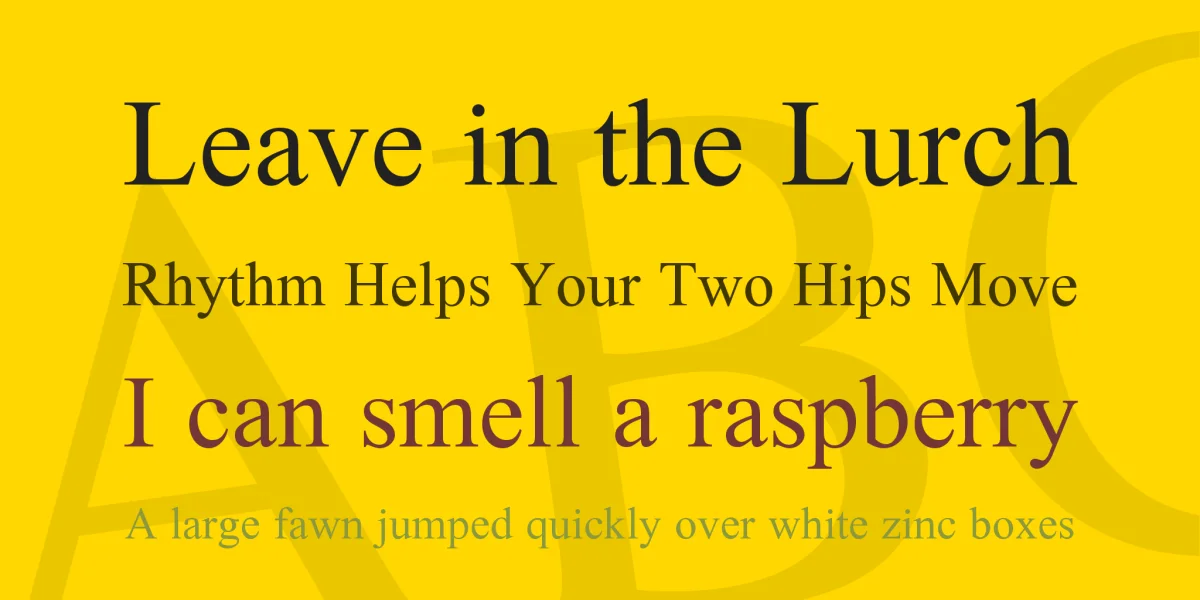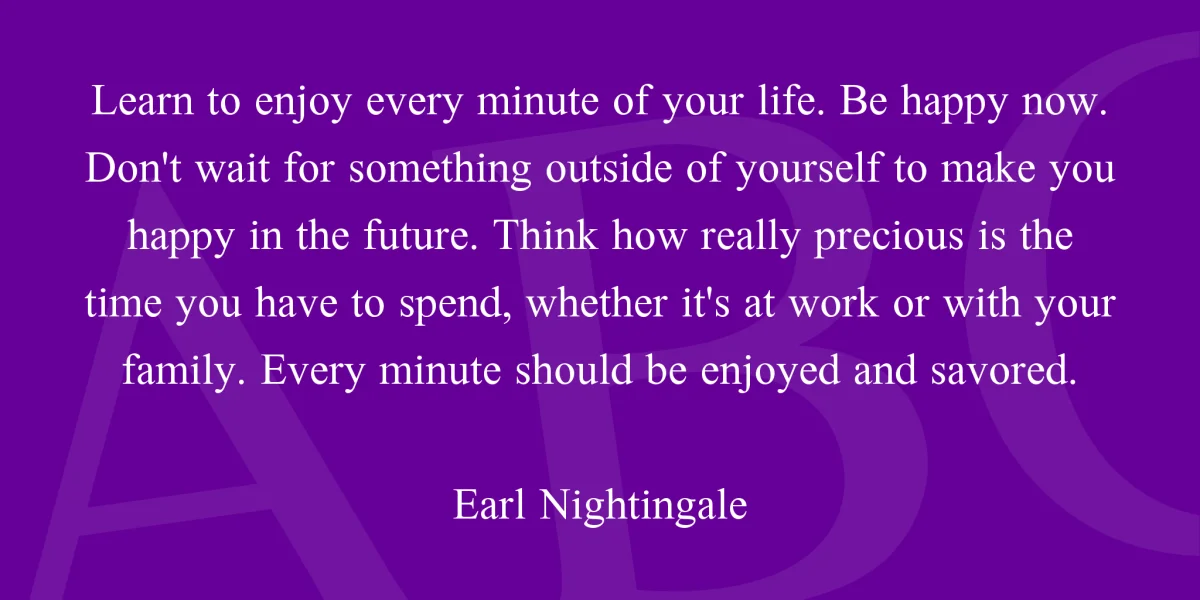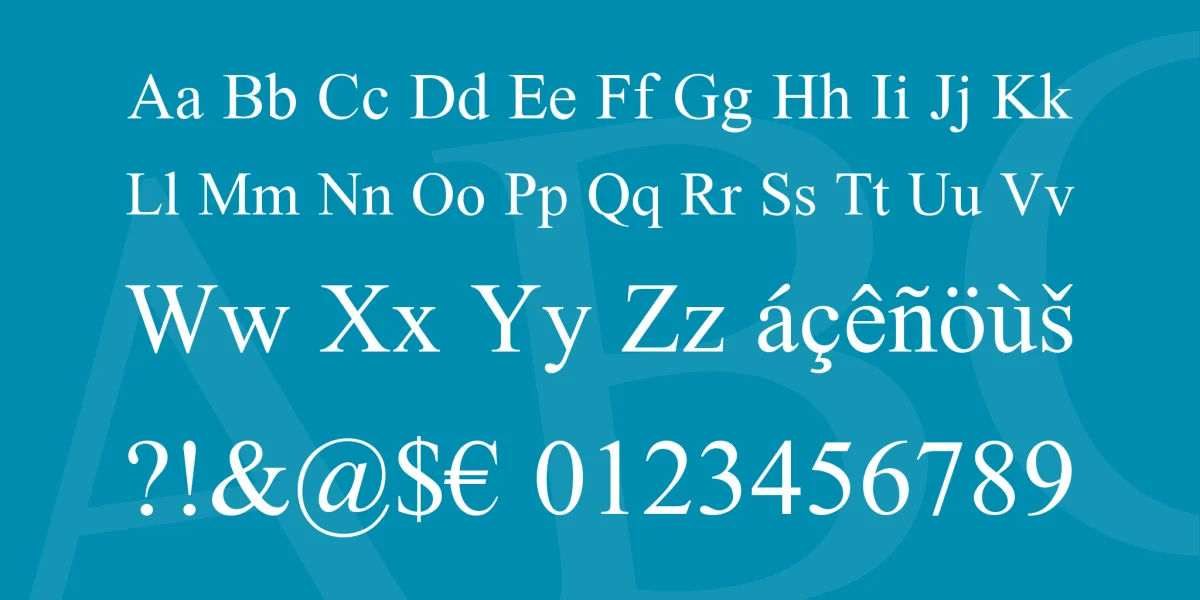
Doulos SIL is a Unicode-based font family that supports the wide range of languages that use the Latin and Cyrillic scripts, whether used for phonetic or orthographic needs. Linguists appreciate the wide range of characters and symbols useful in their work.
Well-established design
This Doulos SIL font is essentially the same design as the SIL Doulos font first released by SIL in 1992. The design has been changed from the original in that it has been scaled down to be a better match with contemporary digital fonts, such as Times New Roman®. Read more about its design.
IPA support
Doulos SIL is a Unicode-encoded serif font similar to Times New Roman. Besides having a comprehensive inventory of glyphs needed for almost any Roman- or Cyrillic-based writing system, it also contains the entire inventory of the International Phonetic Alphabet (IPA). The font supports advanced OpenType features useful for multilingual texts, including careful diacritic positioning and small caps. Read more about our font features.
Complete character set
The Latin and Cyrillic scripts are used to write thousands of languages around the world. Doulos SIL provides comprehensive support for these writing systems, and includes a wide range of additional characters and symbols useful for linguistics and literacy work. Read more about our character set support.